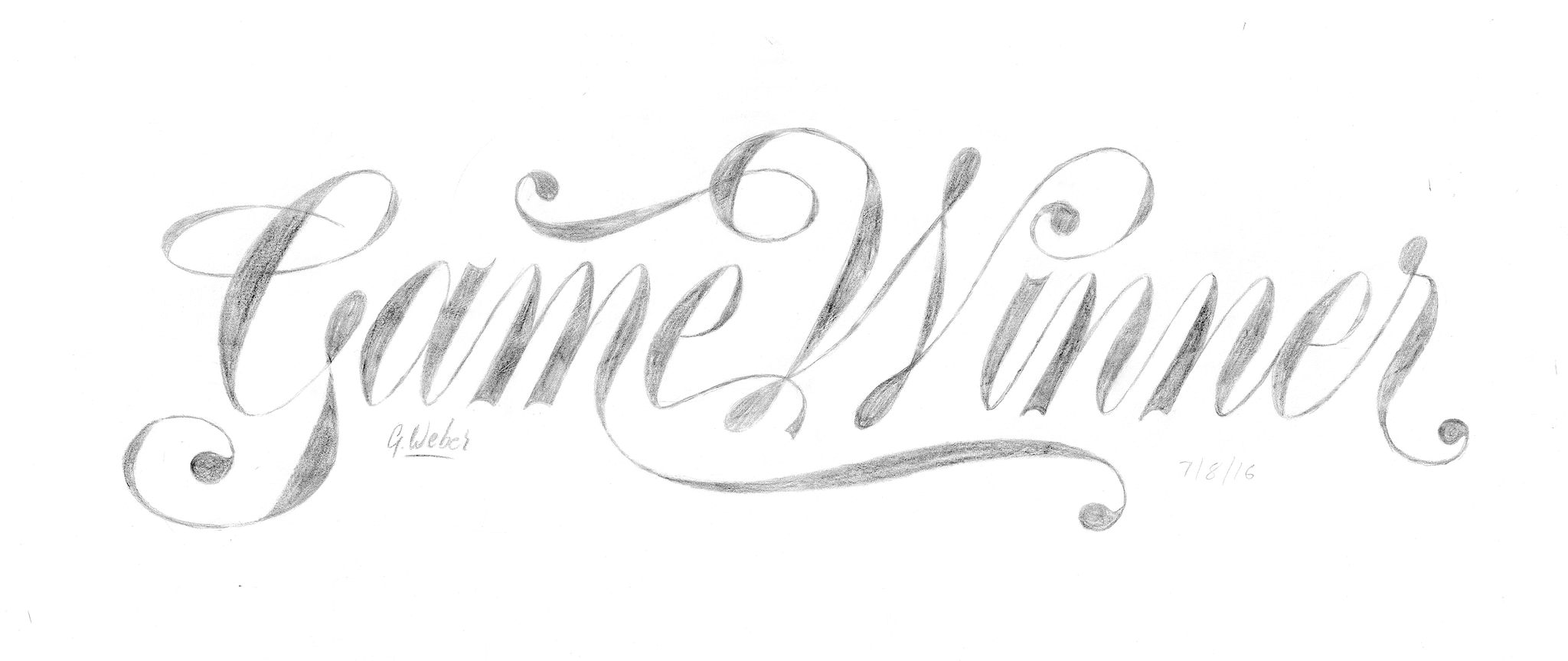
Graham Weber
To celebrate our talented and diverse membership, the TDC profiles one member each month. For October, we are introducing you to typeface designer, Graham Weber, whose responses to our five questions will let you know what’s going on inside the mind of this gifted young creative talent.
Tell us a little bit about yourself - what you do and where you work
My name is Graham Weber, and I am a 14-year-old aspiring type designer, graphic designer, and art director ferociously studying type and graphic design. This past year, I discovered my love for design and began to learn the craft. I am currently building a studio in my house with an old drafting table, a desk, a collection of type specimens, and many instructional and historical books that have been loaned, given, or recommended to me.
Even though I have few finished projects to showcase, as I am mostly in the midst of works-in-progress, I am extremely grateful to have the honor of being selected TDC’s Member of the Month and know that there are many more deserving designers. So although I’ve included one of my own works here, I am featuring work by designers that I admire and hope to learn from and emulate in the coming years. TDC’s recognition will certainly continue to fuel my passion.
1weber_gamewinnerClient work created by Graham Weber for singer-songwriter Joey Dosik’s new album, Game Winner.
What is your favorite typeface? And why?
In my view, a typeface is defined by its design rather than by its usage—the design is the only aspect a type designer is fully and truly able to control. As such, while many might oppose Helvetica because of its connection to globalization and commercialization, I appreciate the beauty in the strength of its counterforms. However, my favorite typeface is a tie between Quarto by Hoefler & Co. and Eames Century Modern by Erik Van Blokland & House Industries.
2graham_quarto_hoeflerQuarto specimen by Hoefler & Co. Generously provided by Jonathan Hoefler and Brian Hennings.
From where do you receive your typographic/design inspiration?
I find inspiration for my typographic ideas, interests, and collections in many different places. Essentially, I am captivated by good type and graphic design wherever I see it, but I draw primarily from my wonderful teachers and mentors to whom I am so grateful. I also adore and am inspired by the many lectures I attend at the TDC and Cooper Union and the myriad classes I take at Type@Cooper, SVA, Parsons/The New School, and FIT. In addition, I frequent many museums, libraries, and study centers in Manhattan, such as the Herb Lubalin Study Center of Design and Typography at Cooper Union and the TDC library, as well as the Whitney Museum of American Art, my favorite museum. I also spend a lot of time collecting type specimens.
3graham_interpolserif_famiraInterpol Serif specimen by Hannes Famira for Famira Fonts
What is your all time favorite piece of design?
My favorite piece of graphic design is, again, a tie. First, I love the 1968 Mexico Olympic identity because I think it functions well as a piece of design while accurately encapsulating the energy produced at those Games. Secondly, I adore the Apple logo because of the way it utilizes negative space. The field of negative space that surrounds the logo helps differentiate it and build its powerful brand identity. Furthermore, I have great appreciation for the Noordzij cube, its design, and its significance and influence in the field of type design. Finally, I am also a huge admirer of designers who step away from the clean, often minimal design approach and use texture and other creative elements to help solve visual problems.
4graham_highline_ocdFriends of The High Line branding by the Original Champions of Design.
Where do you see the future in typographic design and typeface design?
I personally see type becoming more widely appreciated as the current trend of democratization continues, with more and more people gaining access to the tools of type creation. Whether this is positive or negative in the long run, I cannot say; however, as I am largely a product of this trend, my current stance is positive. Without the easily obtainable programs of today, there would be little chance that I would even know that the TDC existed, let alone be awarded such an honor as a member!
Looking into the future, I am eager to try to encourage increasing incorporation of experimental psychology into the practice of type design by analyzing and creating typefaces to benefit individuals and society. Specifically, I seek to work on the research and development of studies that inform typefaces that either encourage certain emotional responses such as happiness (in other words, a “happy typeface”) or help ease certain psychological conditions such as anxiety and dysthymia (a “relaxation typeface”). I hope to help run experiments to test the null hypothesis that there is no relationship between typeface style and human emotional response as a springboard to further research into causal type-emotion relationships. Going forward, I aspire to combine my passion for type with my interest in psychology to enable type to communicate more effectively with the human mind and impact emotions in more positive ways.
SITP14_14-15Season_V5_joespubPublic Theatre branding by Pentagram.
What is your favorite aspect of being a TDC member? / What drew you to become a member of the TDC?
Without a doubt, my favorite aspect of being a TDC member has been the community of people I have had the pleasure of meeting and interacting with over the past year. I truly appreciate the thrill to have been accepted and treated as an equal member of the community even though I am just a humble beginner. Thanks to the support and encouragement of the TDC, I hope to devote my life to my type design passion and to continue developing my skills so that I might one day join the ranks of the incredibly talented professionals who have already given me such kind and generous guidance and advice. The free pretzels at the TDC events are pretty nice, too.